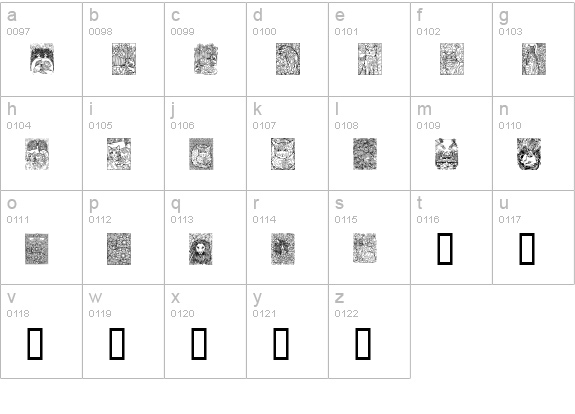
Cats Font Details
Introducing Cats font - a playful and whimsical typeface that will bring a touch of charm to your design projects. With its unique and creative letterforms, Cats font exudes a sense of fun and creativity. Whether you're working on a children's book, a greeting card, or a logo design, this font is sure to make a statement. What's even better is that Cats font is available for free download at FontsMarket.com. Yes, you read that right - you can enjoy the delightful Cats font at no cost! Simply head over to FontsMarket.com, grab your free copy, and start adding a touch of feline-inspired flair to your designs today. Don't miss out on this purr-fect opportunity to elevate your projects with the charming Cats font!